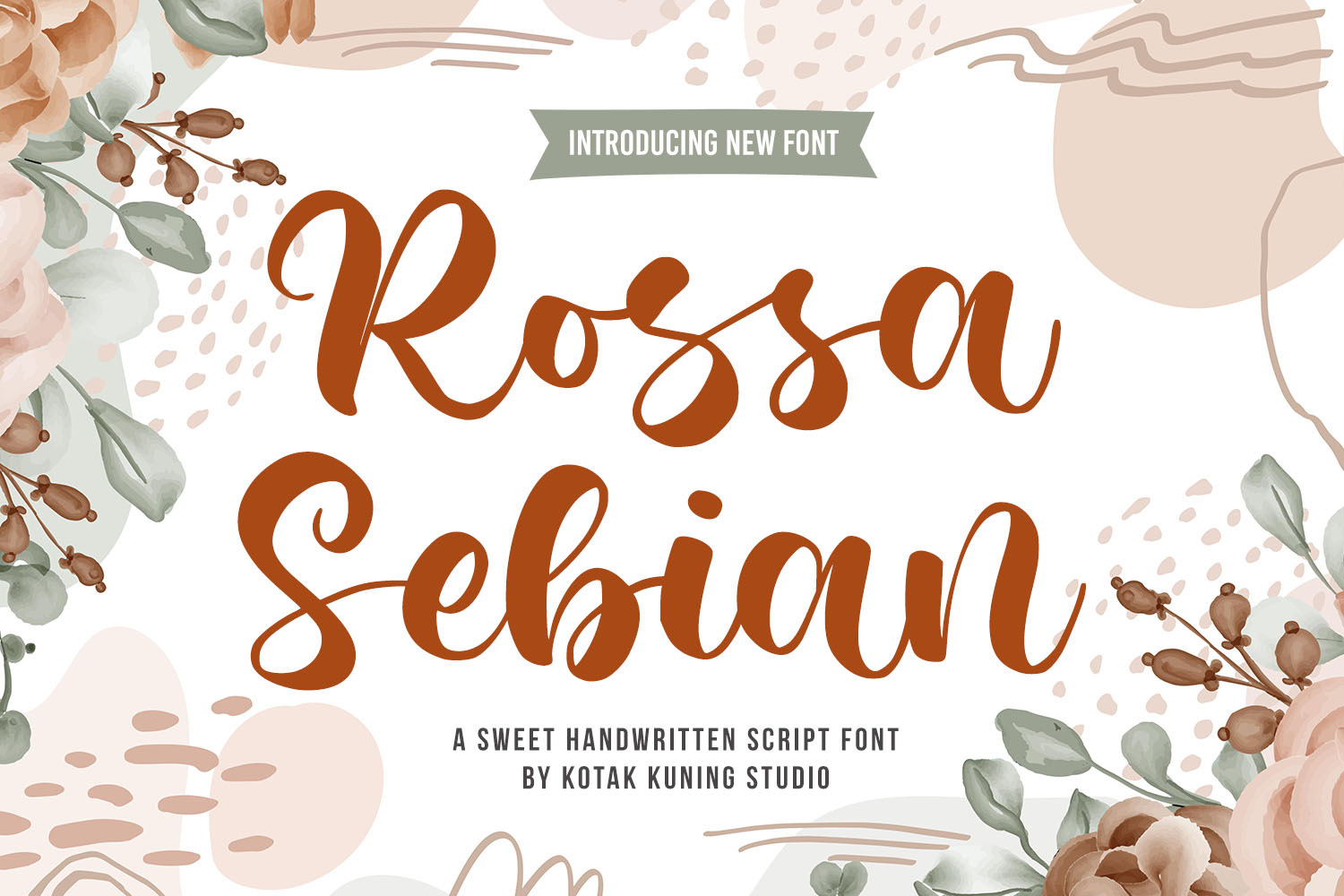
Rossa Sebian Handwritten Script Font
Rossa Sebian is a sweet modern handwritten script font. This font was designed to enhance the beauty of your projects.
Rossa Sebian is perfect for many different projects such as logos & branding, invitation, stationery, wedding designs, social media posts, advertisements, product packaging, product designs, label, photography, watermark, special events, or anything.